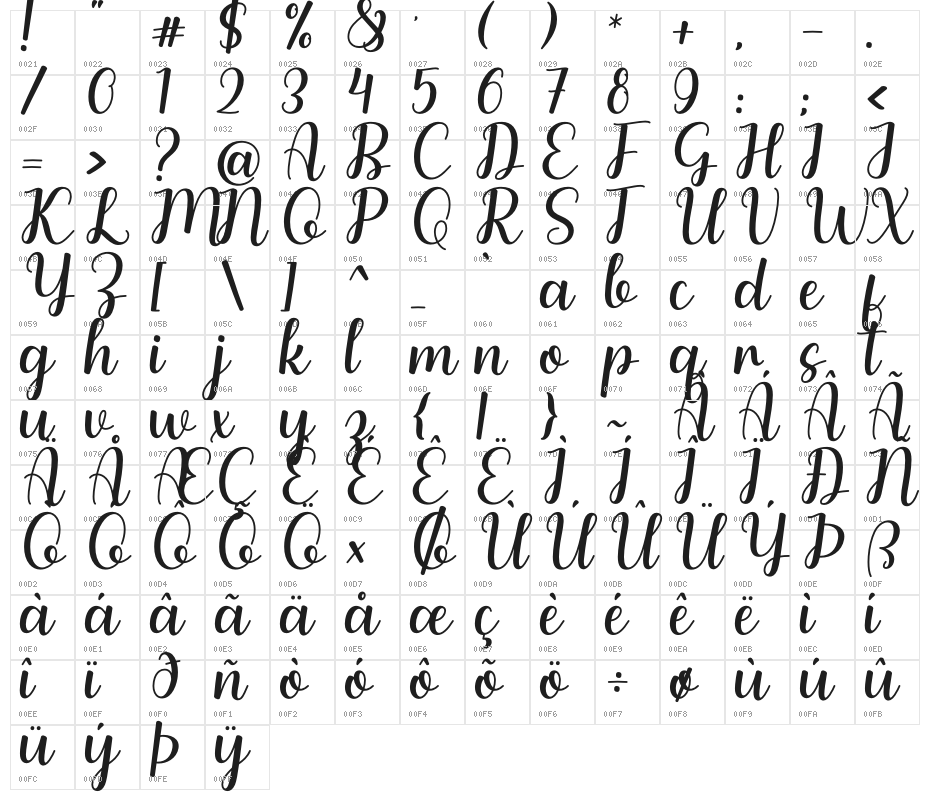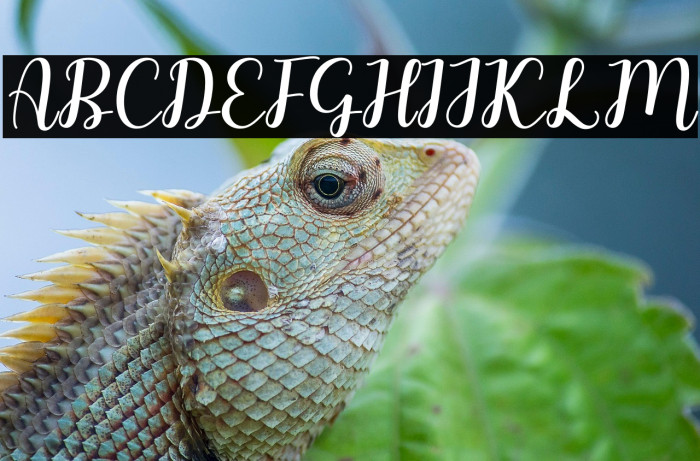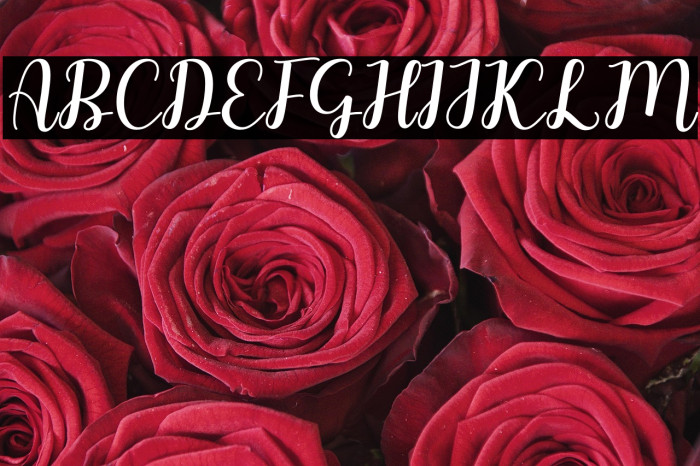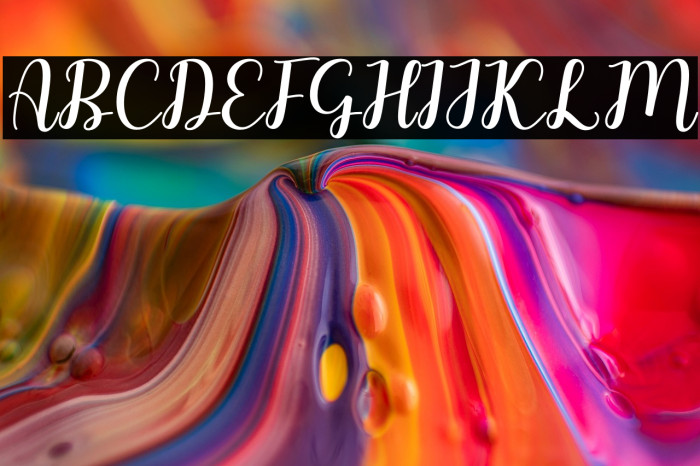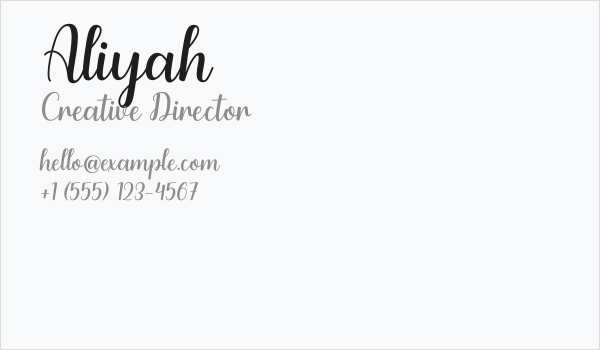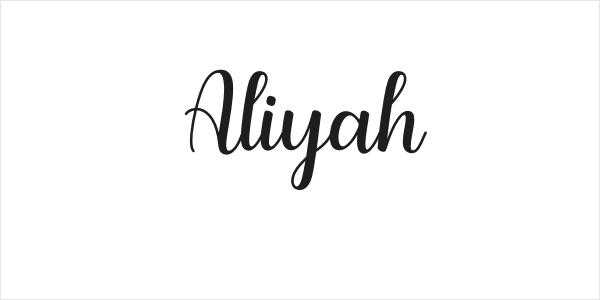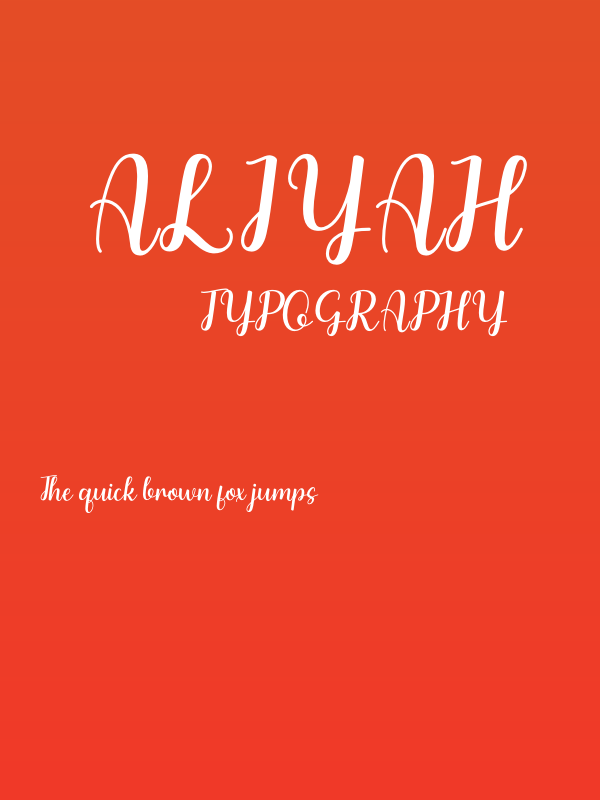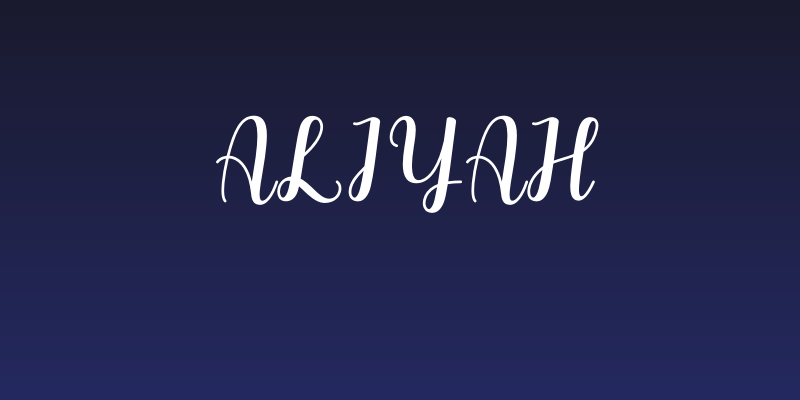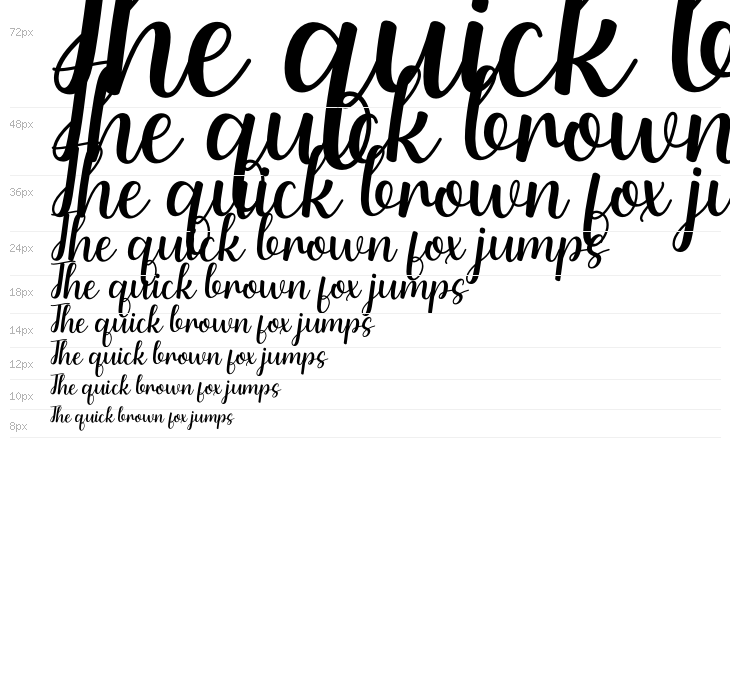
Aliyah Font
Aliyah Description
This font features a flowing, cursive style with elegant loops and swashes, giving it a sophisticated and artistic appearance. The uppercase letters are particularly ornate, with each character exhibiting unique flourishes that enhance its visual appeal. The lowercase letters maintain a consistent style, offering a harmonious blend of readability and decorative flair. Numbers and special characters are designed to match the overall aesthetic, ensuring a cohesive look across all text. The font's smooth curves and balanced proportions make it suitable for a wide range of creative applications.